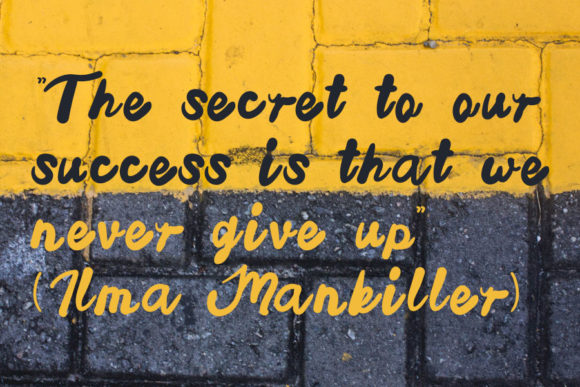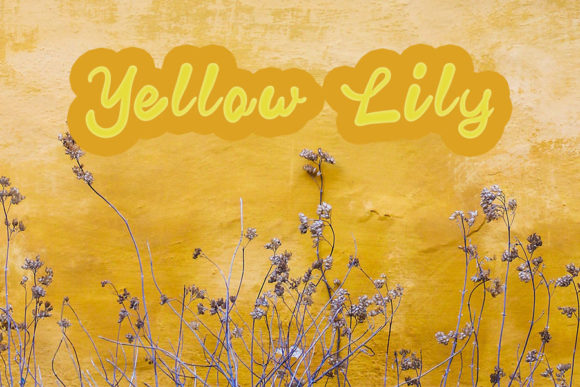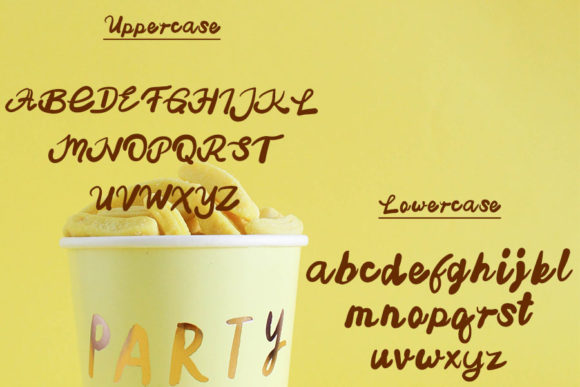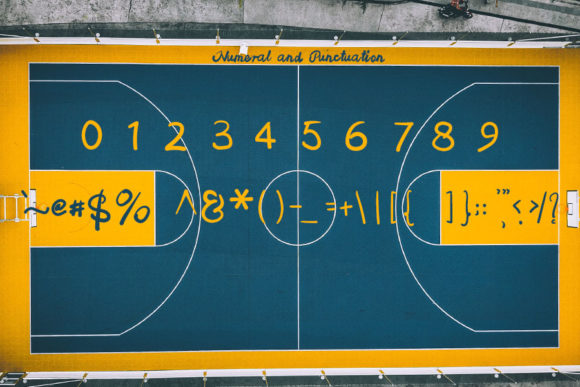
Introduction to Perfect Sweetness Font
Have you ever stared at a blank page, waiting for the perfect idea to strike? The spark that ignites a creative project is a magical thing, and when it happens, it’s like the whole world comes alive. For designers, this feeling is especially thrilling, as it’s often the result of finding just the right design resource to bring our vision to life.
That’s where the Perfect Sweetness Font comes in – a masterfully designed handwritten font that has the potential to elevate your creative ideas to new heights. With its unique charm and high-quality aesthetic, this font is the perfect addition to any design project. Whether you’re working on a free download or a complex design, the Perfect Sweetness Font is sure to add a touch of sophistication and elegance.
But what really sets this font apart is its versatility – from its transparent background to its wide range of applications, the Perfect Sweetness Font is a valuable resource for designers of all levels.
Key Features of Perfect Sweetness Font
- High-quality, professional design perfect for creative projects and presentations.
- Features a transparent background, allowing for seamless integration with any design.
- Designed with a unique, modern aesthetic that adds a touch of sweetness to any design resource.
Honest Review: Perfect Sweetness Font
I recently came across the Perfect Sweetness Font, and I must say it’s a great addition to any designer’s toolkit. This free download has been a game-changer for my creative projects, offering a high-quality, elegant look that’s perfect for any design.
What works well is the font’s versatility – it’s great for titles, headings, and even body text. The transparent background makes it easy to use on any design resource, whether it’s a brochure, poster, or even a logo. The font’s clean lines and subtle curves make it a great choice for any design project.
- Perfect for titles, headings, and body text
- Great for design resources such as brochures, posters, and logos
⚠️ One limitation I’ve found is that the font may not be suitable for text-heavy designs, as it can be a bit difficult to read in smaller sizes.
Overall, I’m very impressed with the Perfect Sweetness Font. It’s a great design resource that’s perfect for any creative project. I’d highly recommend it to any designer looking for a high-quality, elegant font.
Experiment with different font sizes, colors, and combinations to achieve the perfect look for your design. Use the transparent background feature to create seamless designs that blend with your background.
The Perfect Sweetness Font is perfect for creating designs for weddings, baby showers, and other special occasions. It’s also ideal for branding and marketing materials, such as business cards, brochures, and websites.